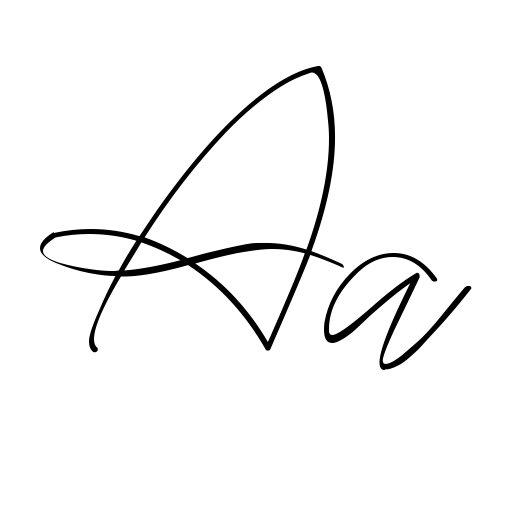
Attasey is a delicate, modern script font with a light, airy feel created by its thin strokes and flowing, handwritten style. Its elegant and casual nature makes it perfect for personal branding, invitations, and creative projects where a touch of sophistication and individuality is desired. This font works well in contexts that call for a refined yet approachable look, such as logos, social media graphics, and stylish editorial layouts.
Attasey Font
About Attasey Font